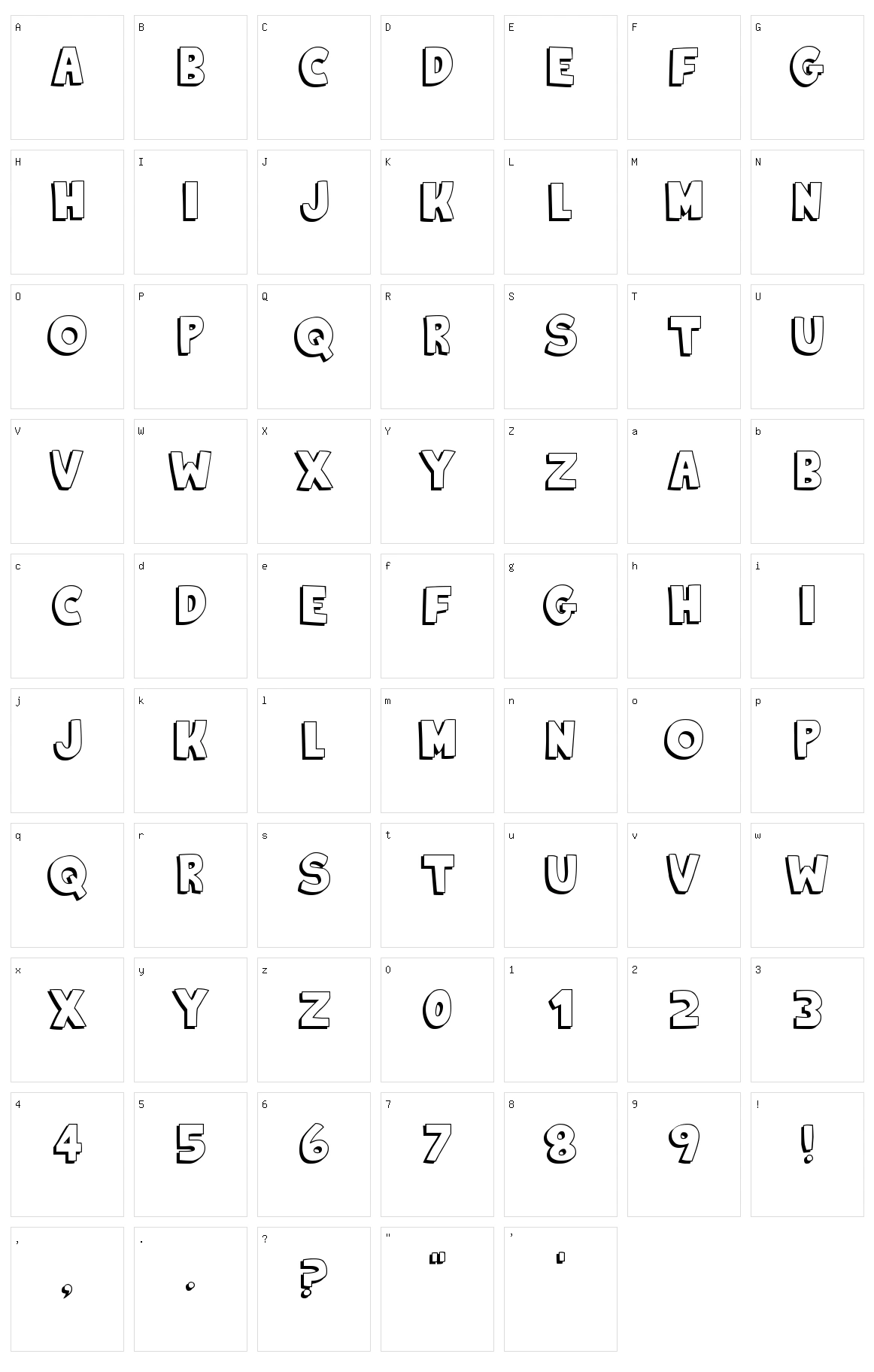
The free font King Of The Hill is carefully designed by Jayde Garrow, showcasing a thoughtful balance of creativity and usability and falls under the Cartoon font style. When you download the ZIP file, it contains only 14.77 KB of font files, making it lightweight and quick to download. Please review the license details below to understand permitted usage and distribution rights. If license information is not available, we recommend using this font for personal projects only or contacting the author directly for commercial usage permissions.